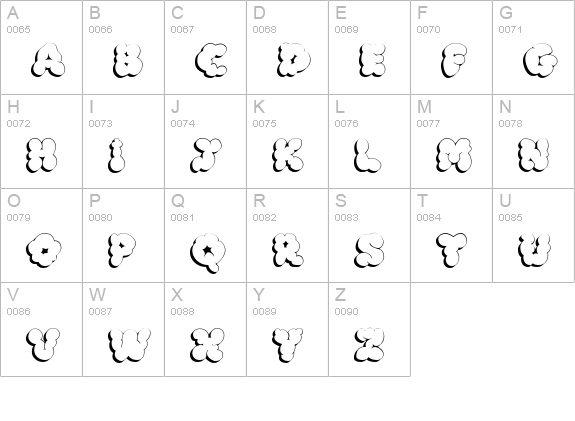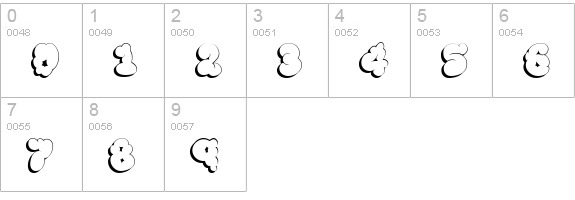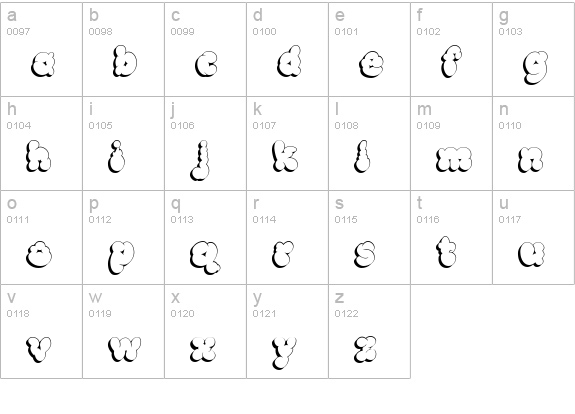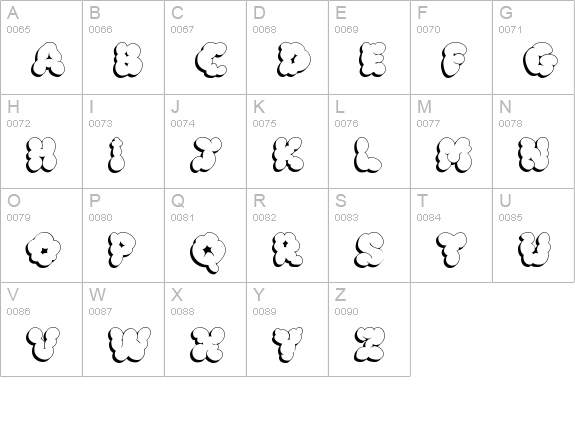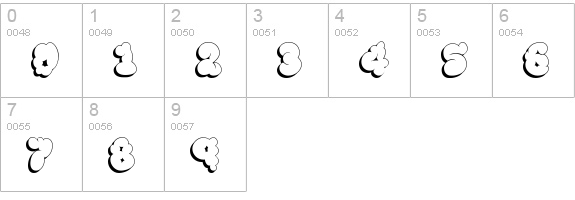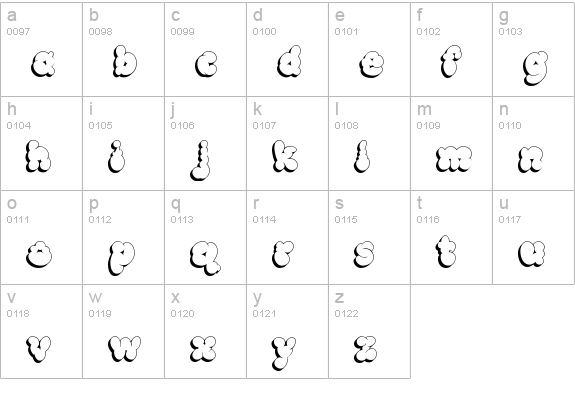
McKloud Shadow Font Details
McKloud Shadow font is a striking and versatile typeface designed with a unique shadow effect that adds depth and intrigue to any design project. Its bold and modern aesthetic makes it perfect for headlines, titles, logos, and more. The font features clean lines and smooth curves, giving it a contemporary feel that is sure to make your designs stand out. What's even better is that McKloud Shadow font is available for free download at FontsMarket.com. This means you can easily access this eye-catching font and incorporate it into your projects without any cost. Don't miss out on the opportunity to enhance your designs with the captivating McKloud Shadow font today!